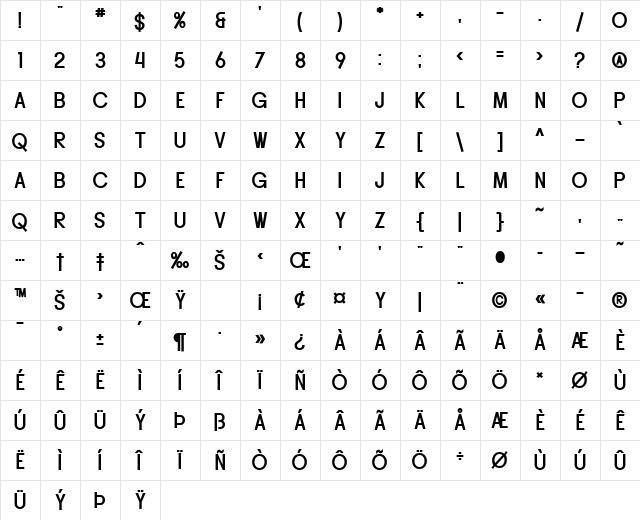
SF Buttacup Lettering Bold Free Font
SF Buttacup Lettering Bold
Designer: ShyFonts Type Foundry
Design Context for SF Buttacup Lettering
SF Buttacup Lettering is a composed and adaptable typeface that performs quietly and consistently across a wide range of design contexts. Its bold stroke weight gives it real presence on the page.
Pro Tip: Use SF Buttacup Lettering in both headline and body roles to test its range before committing to a single application.